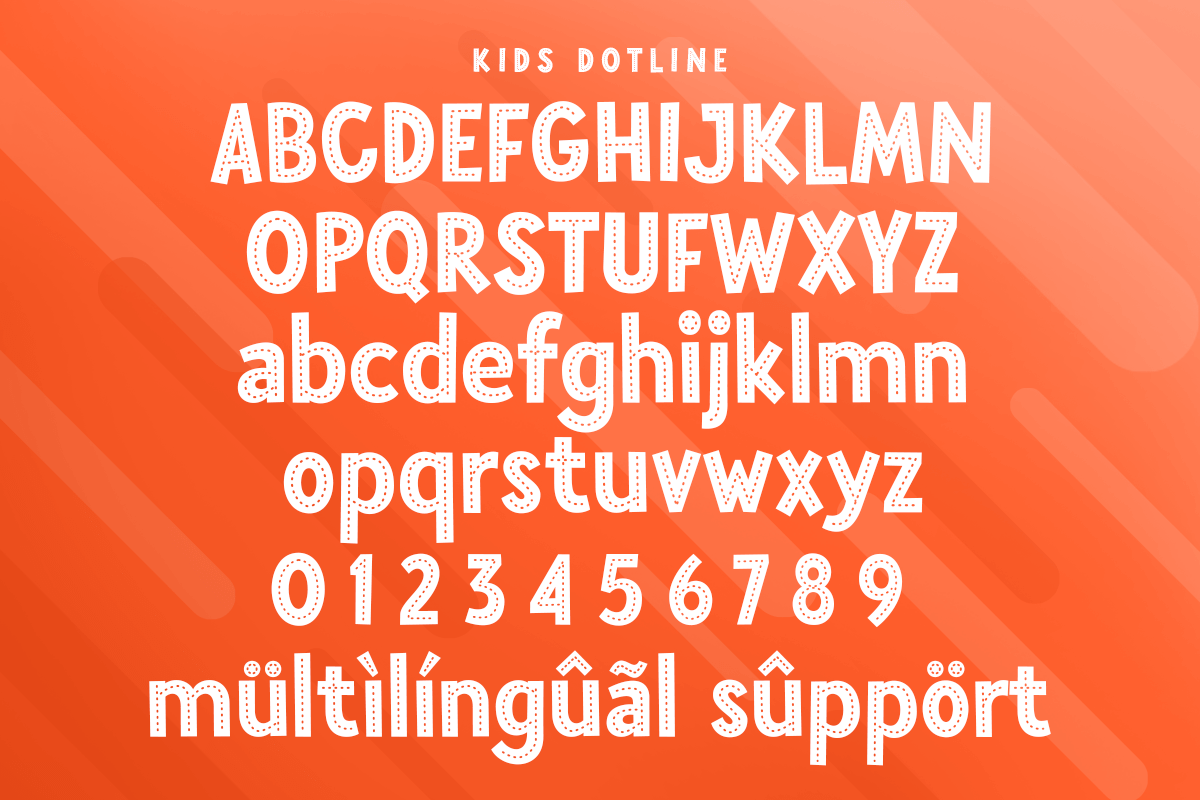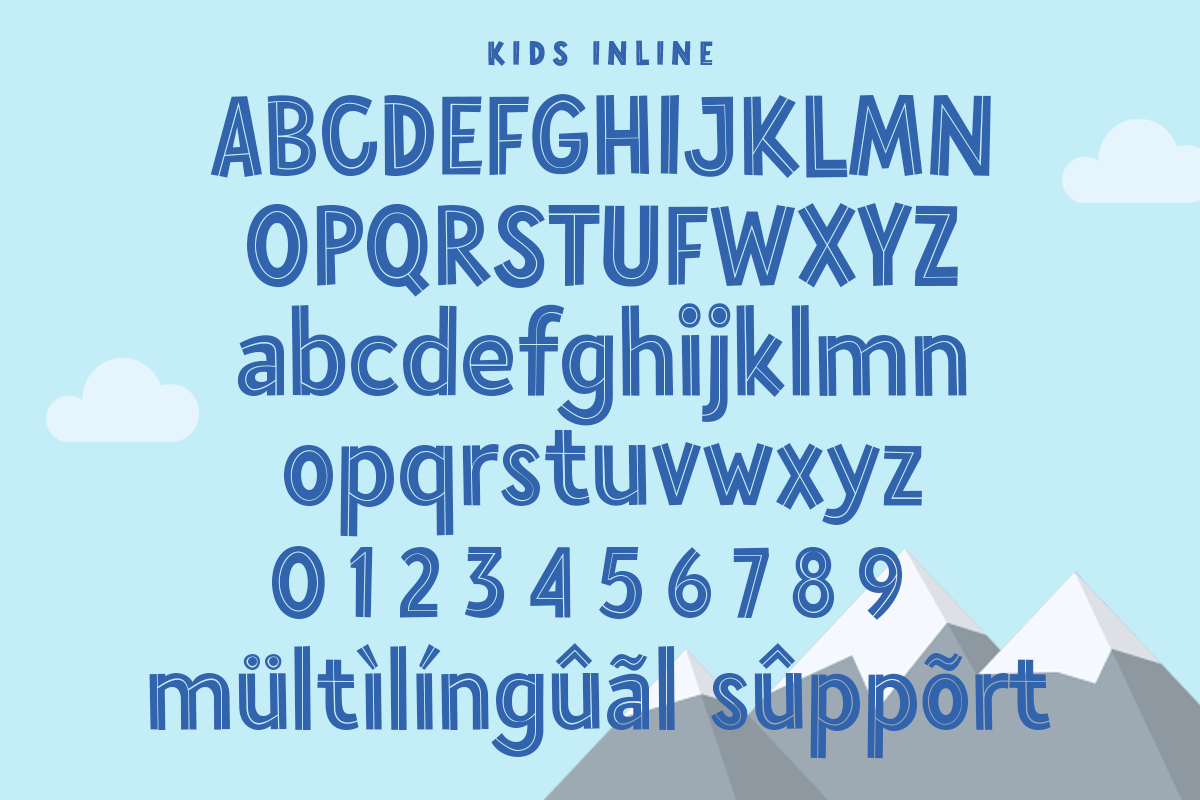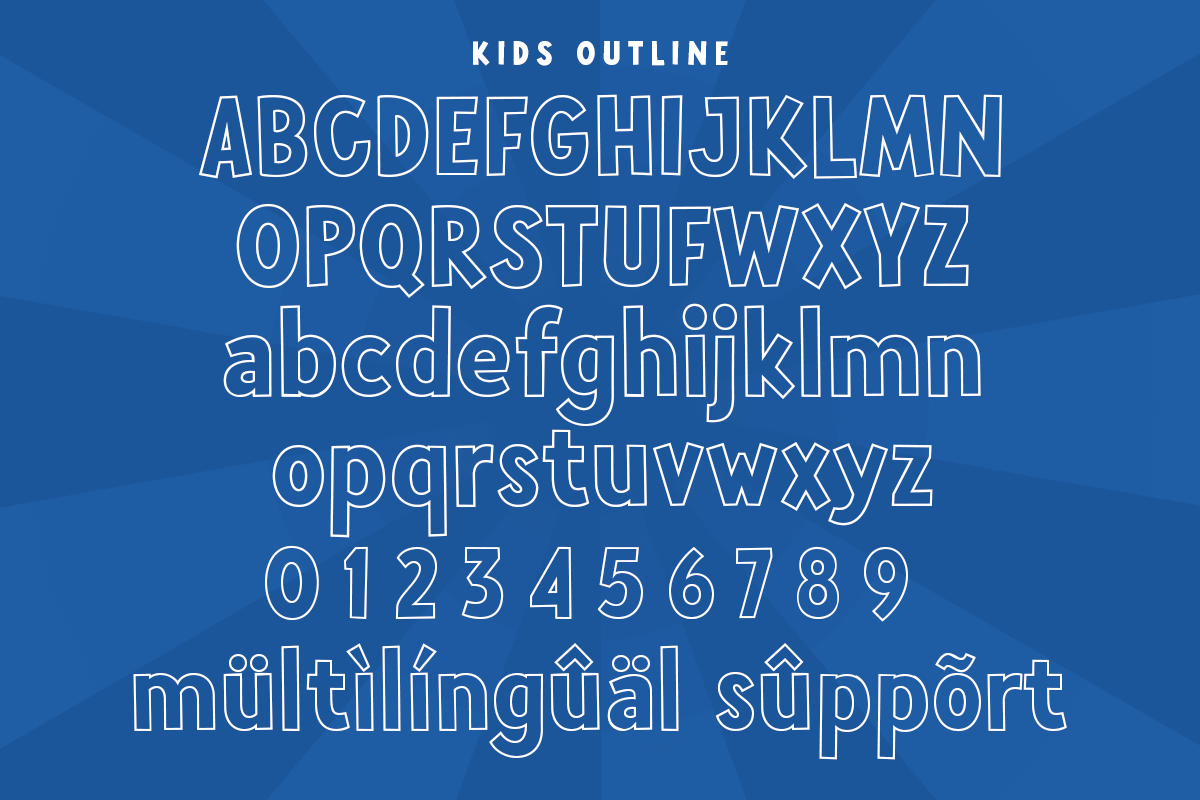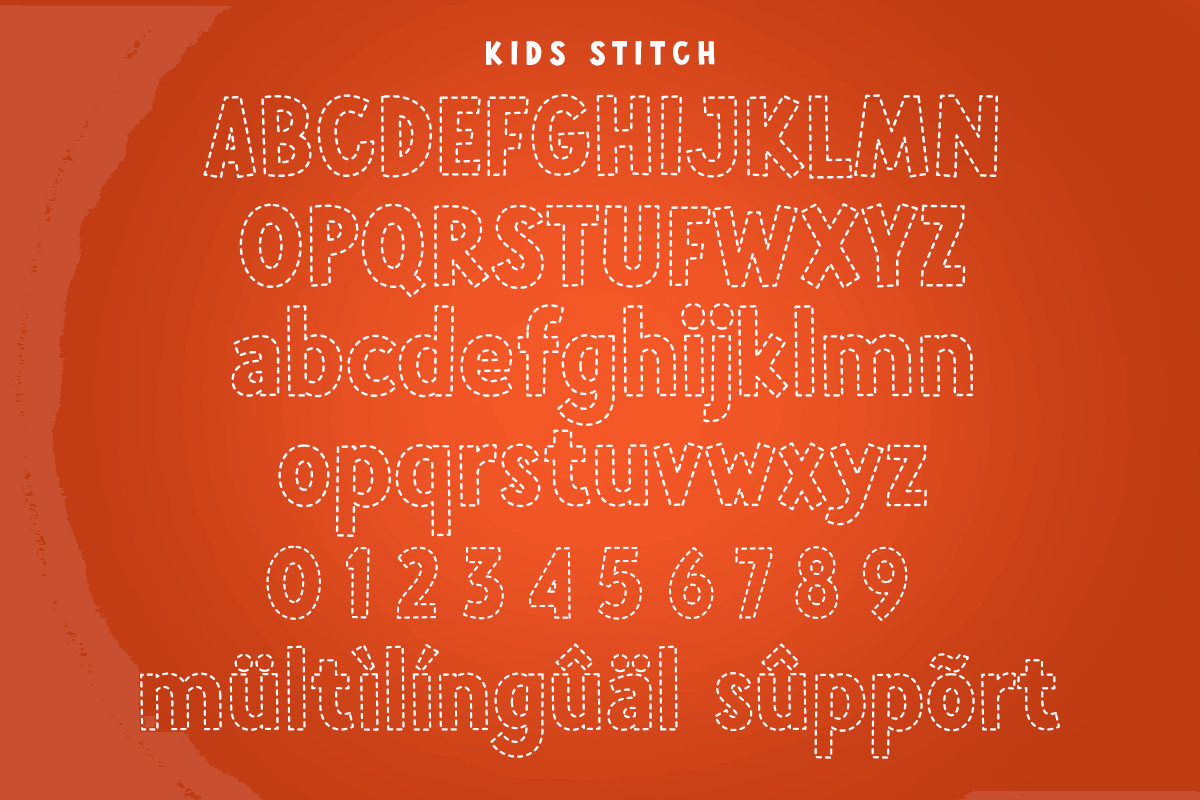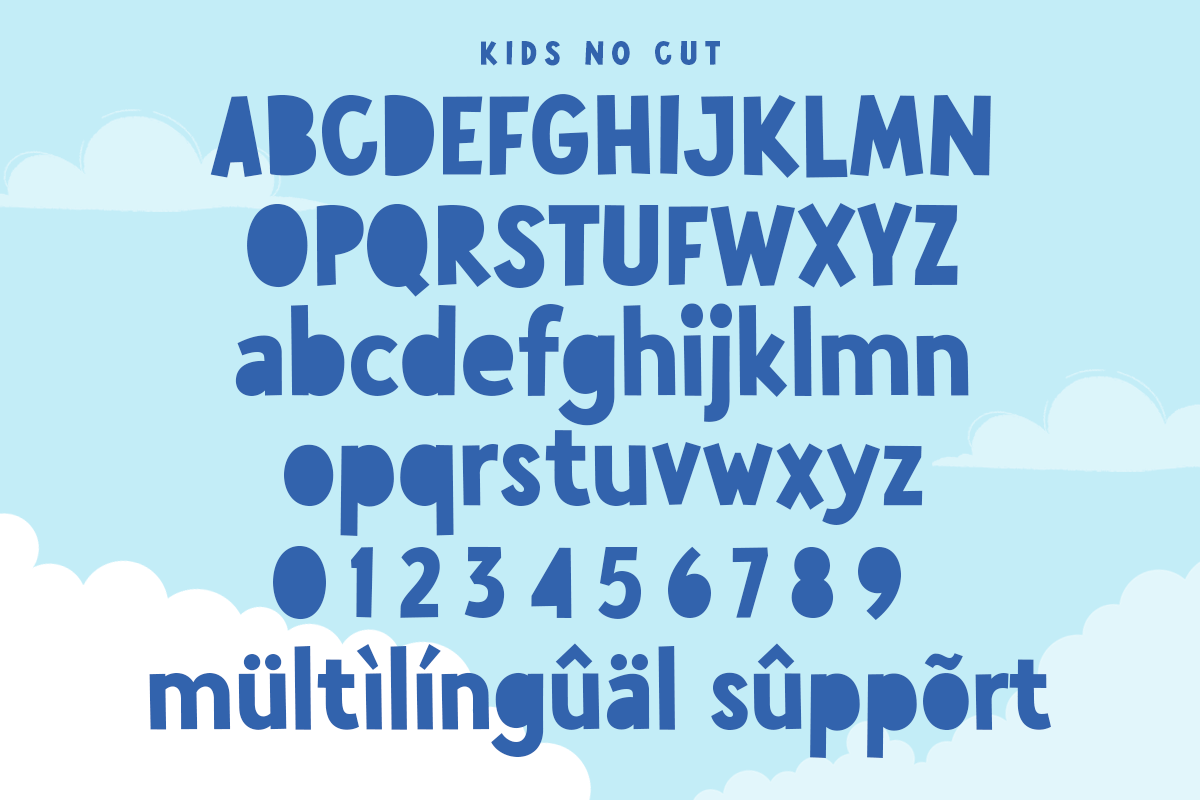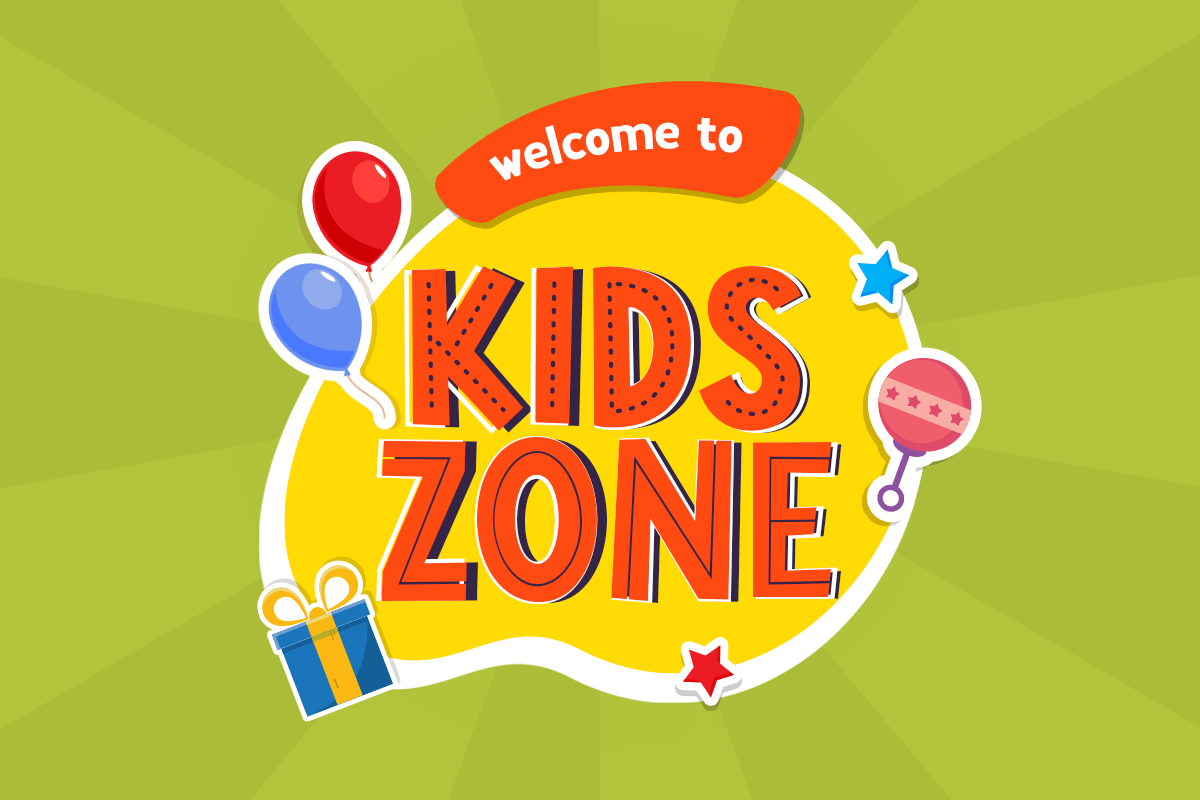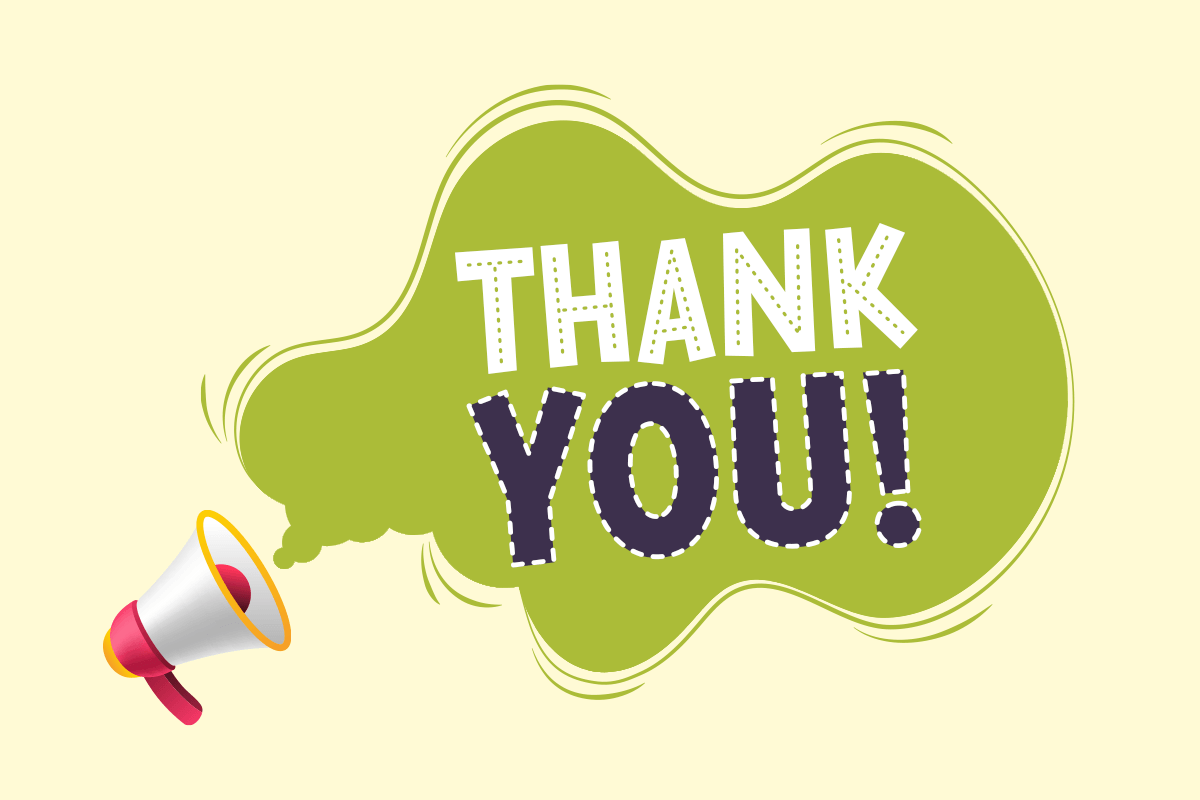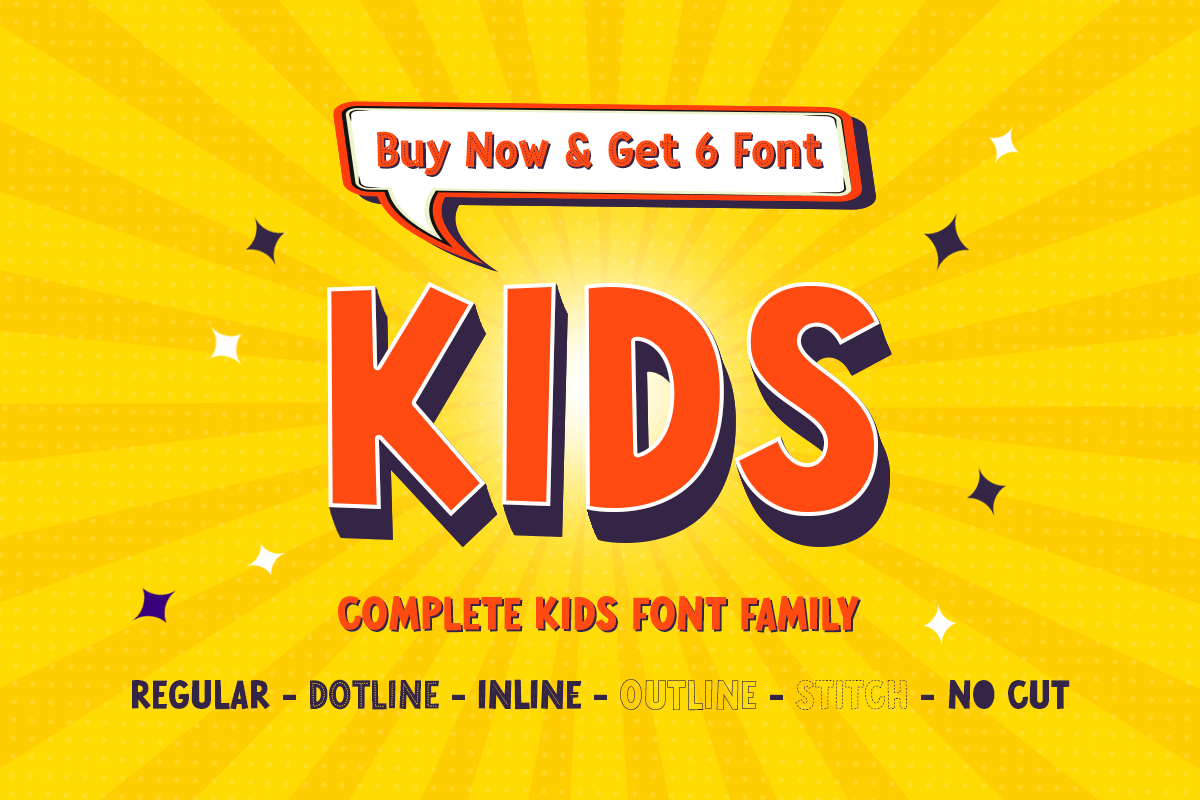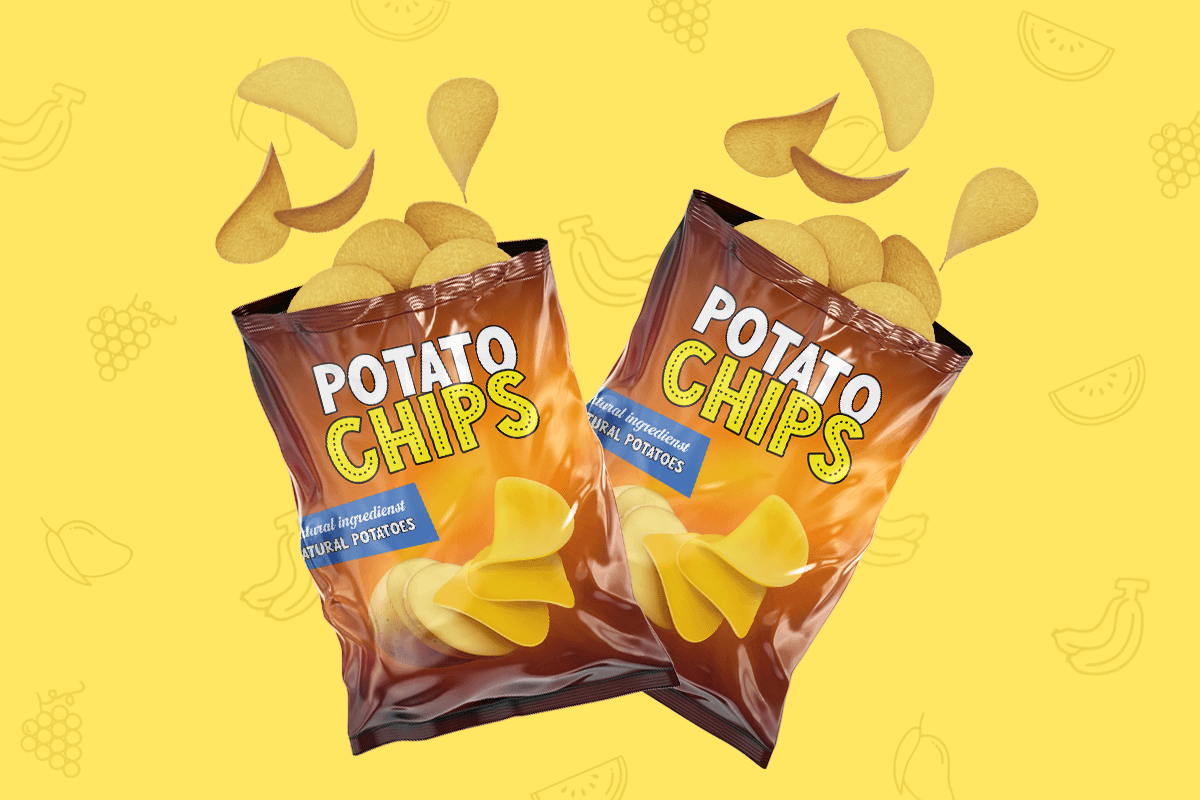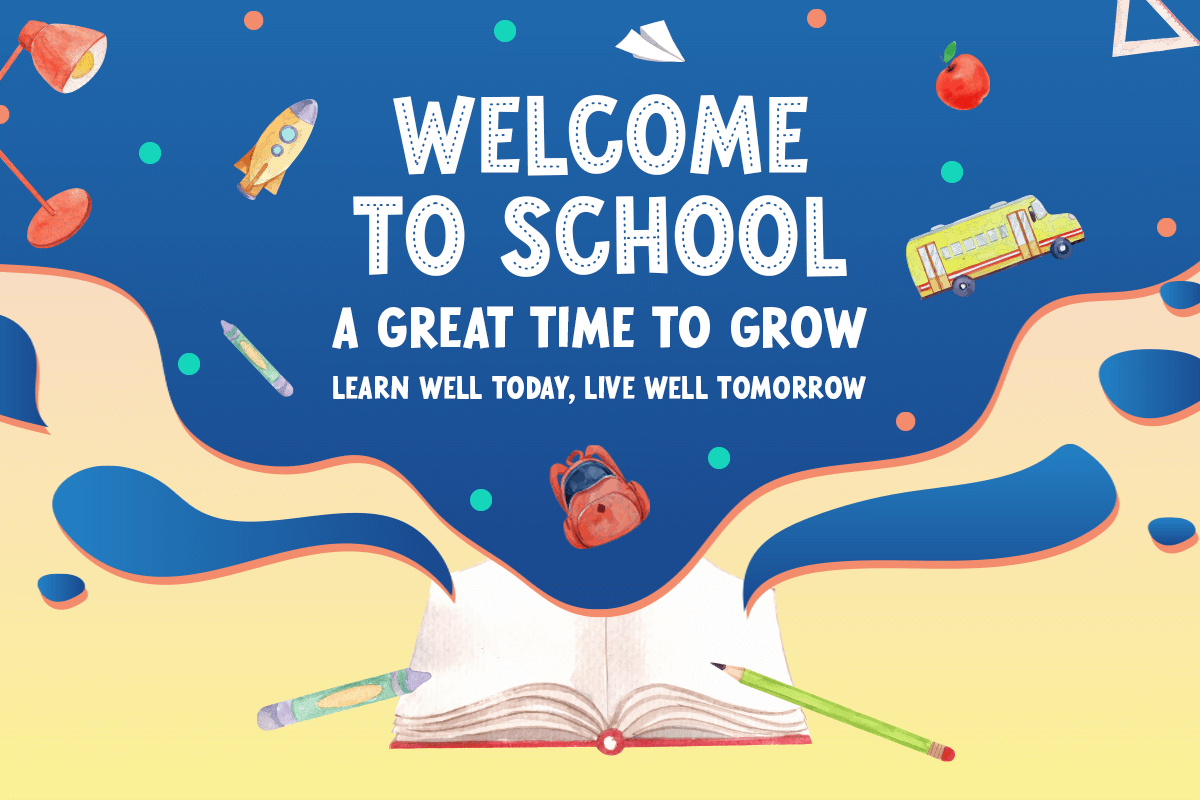
Kids
-Complete Kids Font Family
kids regular
kids inline
kids uncut
kids dotline
kids outline
kids stitch
Do you want to find a good font for Branding, Mobile Apps, Flyer, Magazine, Greeting cards, Comic, etc? Kids font is the best choice.
Kids font is Complete Kids Font Family, are designed for Titles, Headline, Subtitles and many more you want. It has ready with 6 style of fonts and his own unique style with rounded in each corner. Baby School font is an type family ideal for display, game title, text, print, branding, signage, and and also for user interfaces, mobile devices, especially web design creation, with a set of optimal characters for your design in any layout.